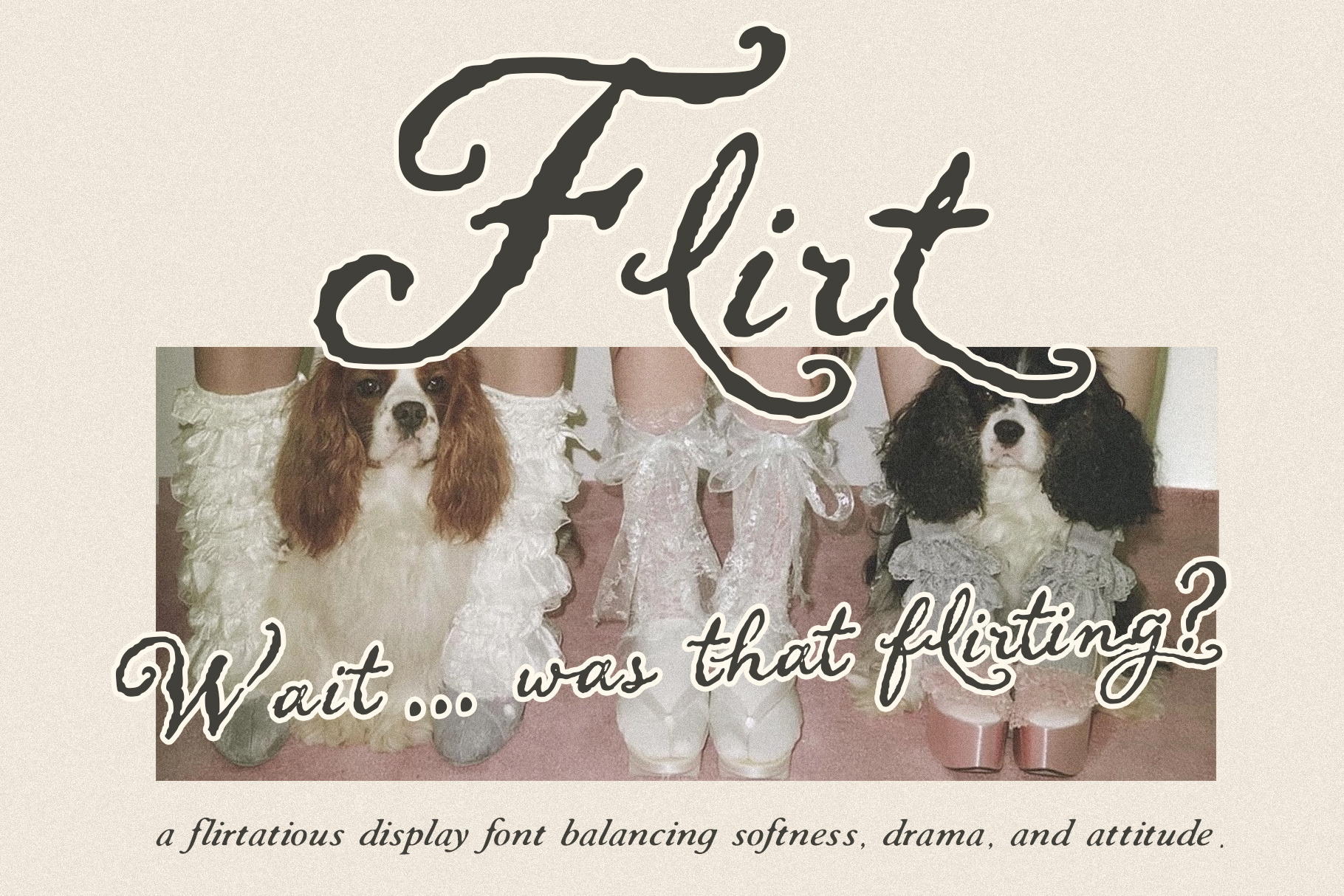
Flirt: Coquette Script Font
Meet Flirt
Flirt is an elegant display script inspired by vintage calligraphy, soft femininity, and modern editorial aesthetics. With graceful curves, expressive swashes, and flirtatious details, this typeface creates a perfect balance between delicacy and bold character.
Designed to feel playful yet sophisticated, Flirt captures the visual tension between softness and confidence — making every word feel intentional, charming, and unforgettable.
Perfect for projects that need romance, luxury, and personality.
Wedding invitations
Branding & logos
Beauty packaging
Editorial layouts
Posters & headlines
Luxury stationery
Fashion campaigns
Soft curves. Sharp intentions.